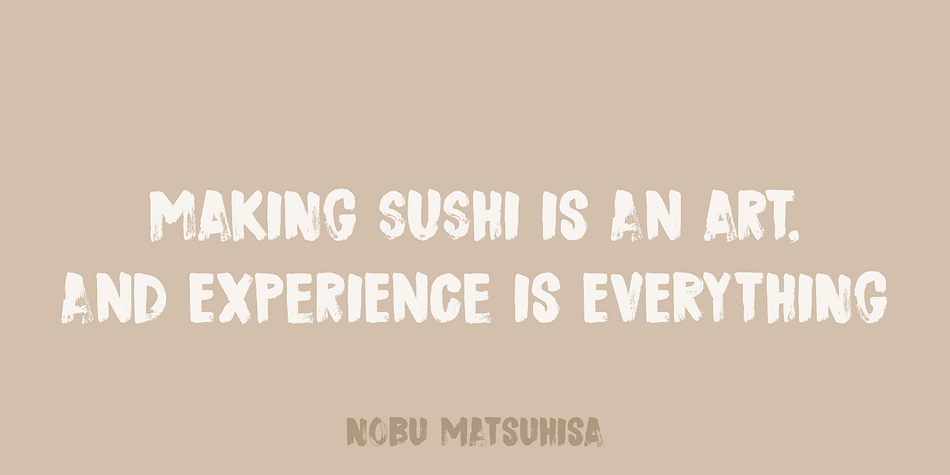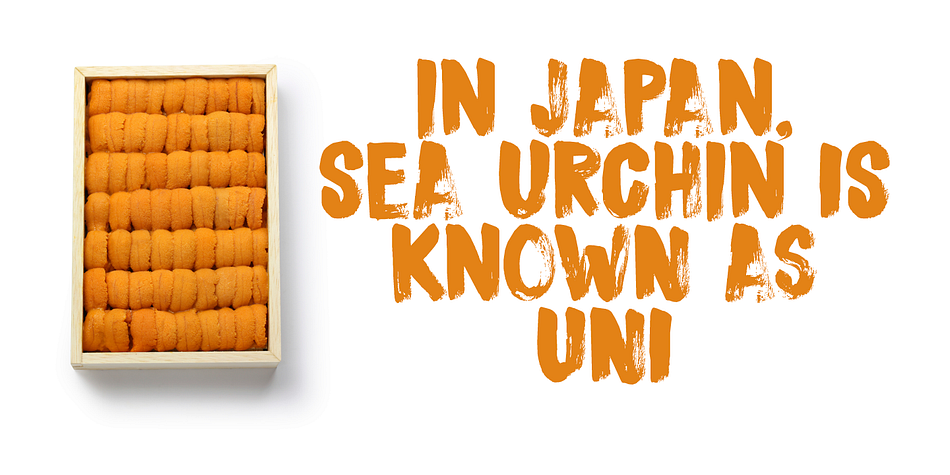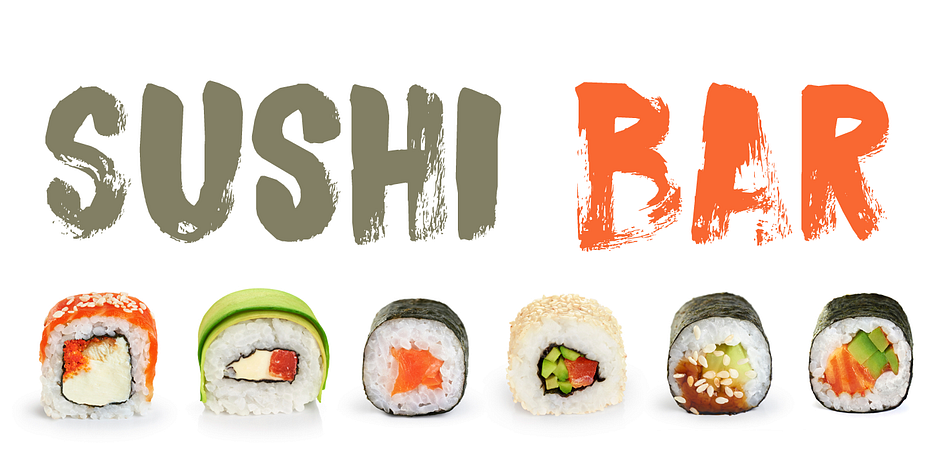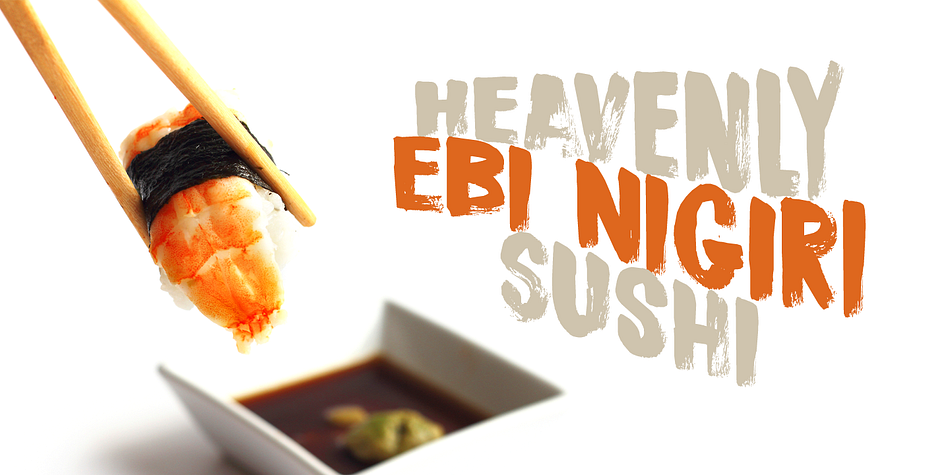
Designed by David Kerkhoff, Sushi Bar is a grunge and brush display font family. This typeface has two styles and was published by Hanoded.
Since I am still in a Japanese mood, I decided to name this font after my favourite pastime in Japan: hunting for the smallest, nicest sushi bar in town. After all, there’s just nothing like eating freshly made sushi and washing it all down with a cup of green tea or a warm sake. Sushi Bar is a very detailed brush font - all caps, but upper and lower case differ and can be mixed. It is an ideal font for posters, albums, headlines and book covers. Comes with a bento box full of diacritics as well!